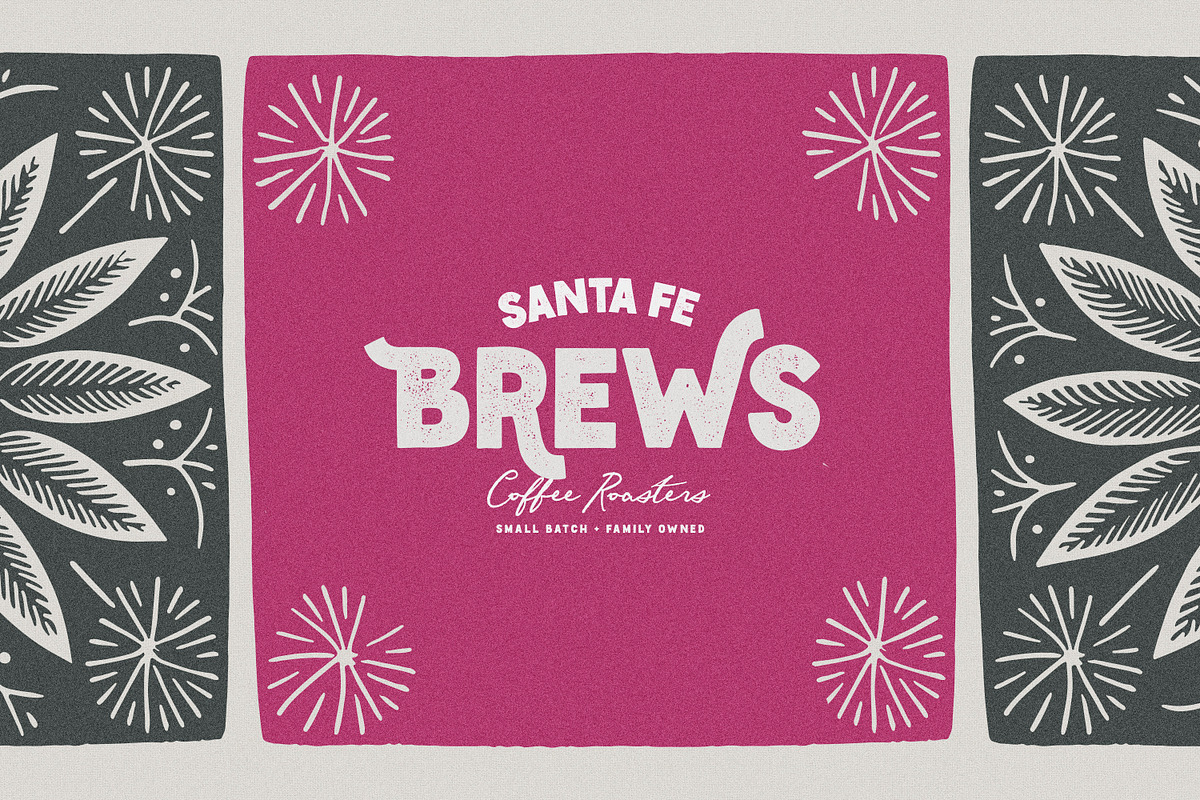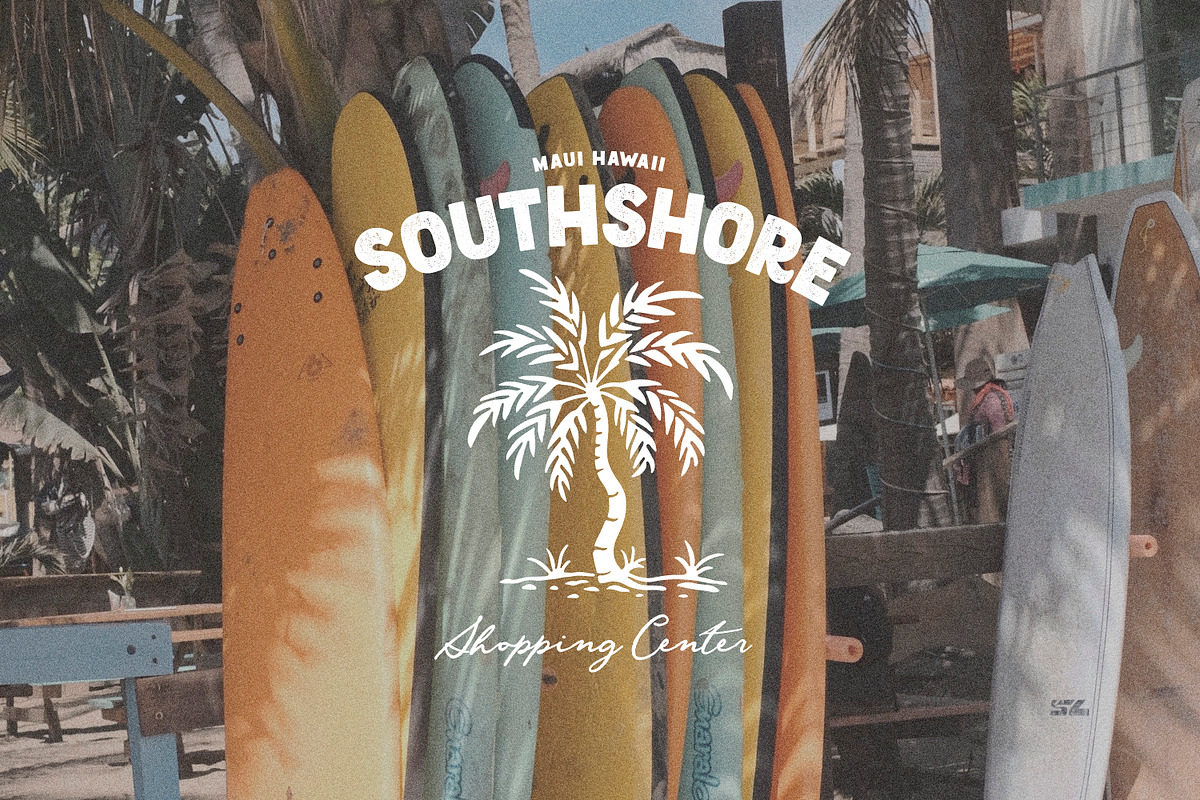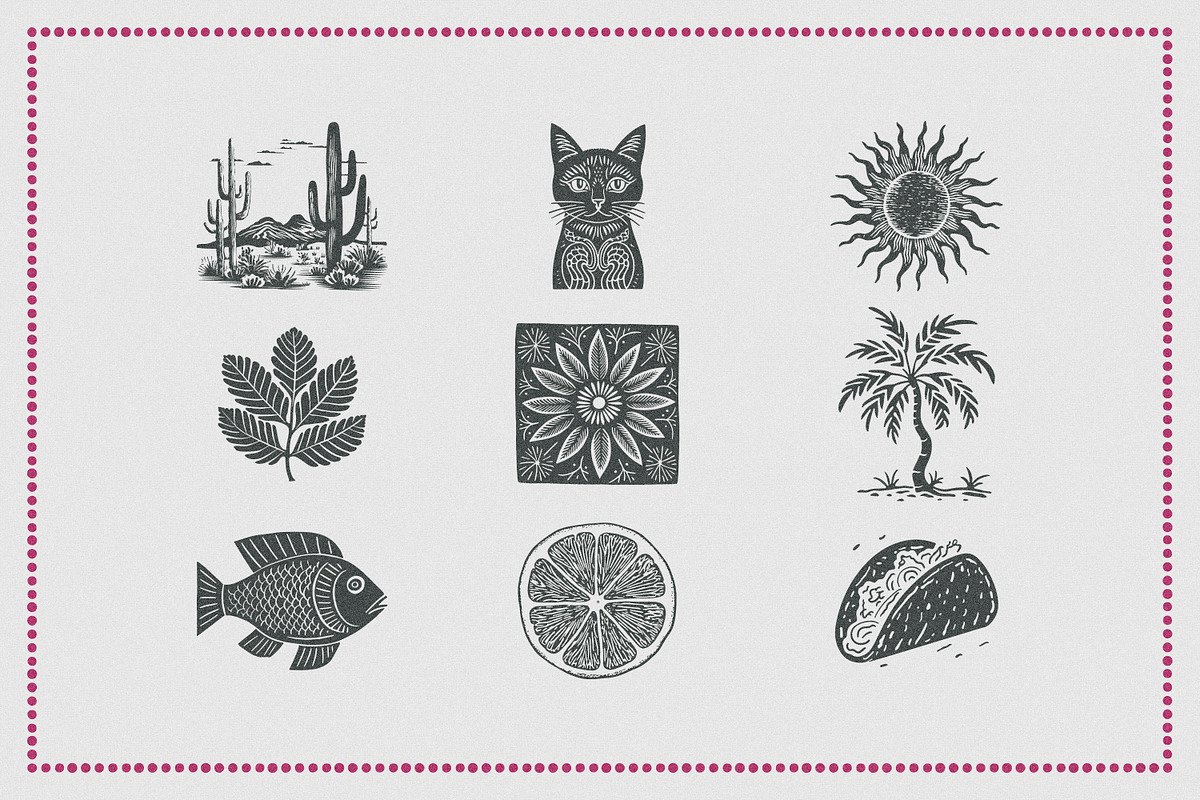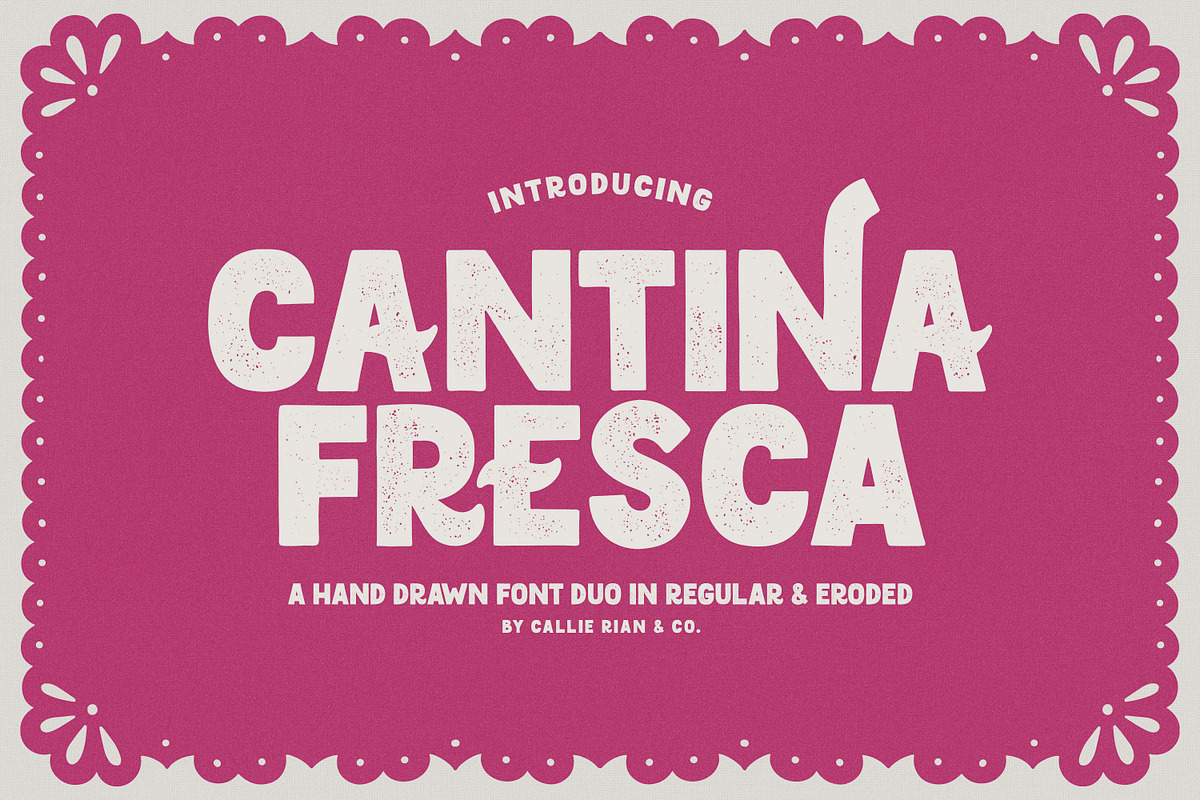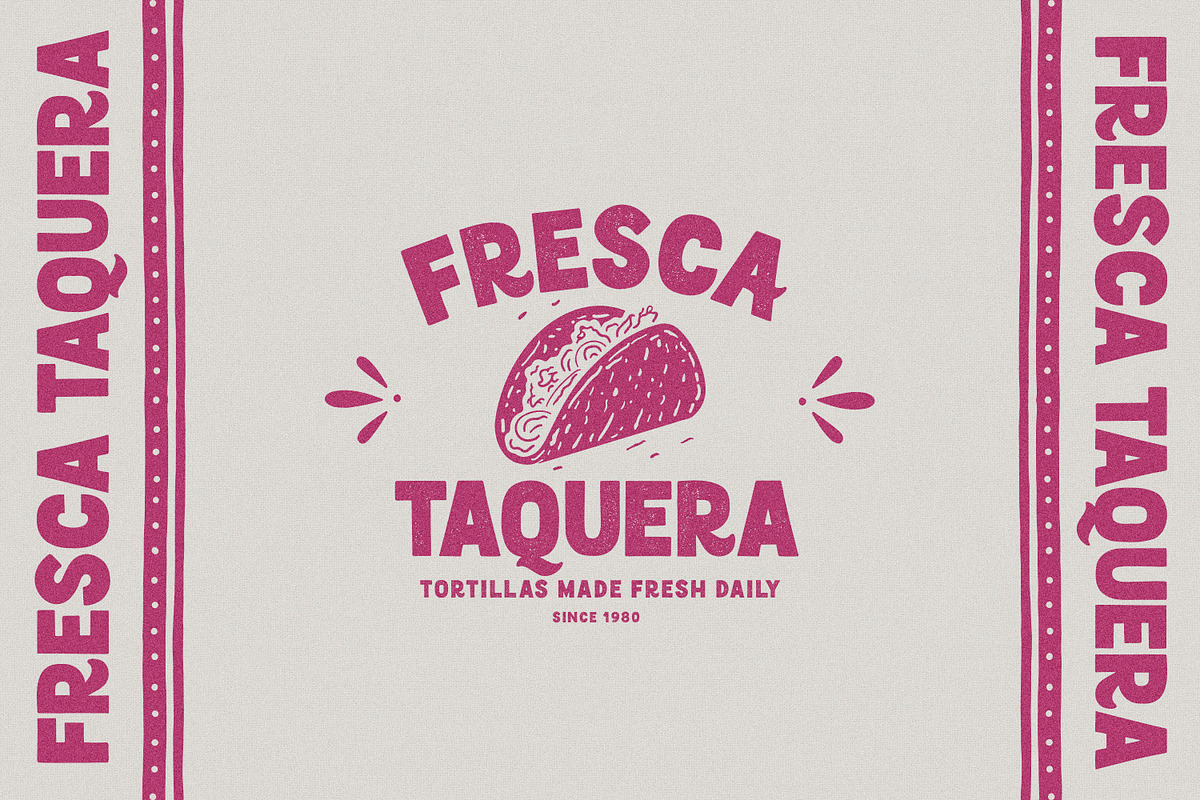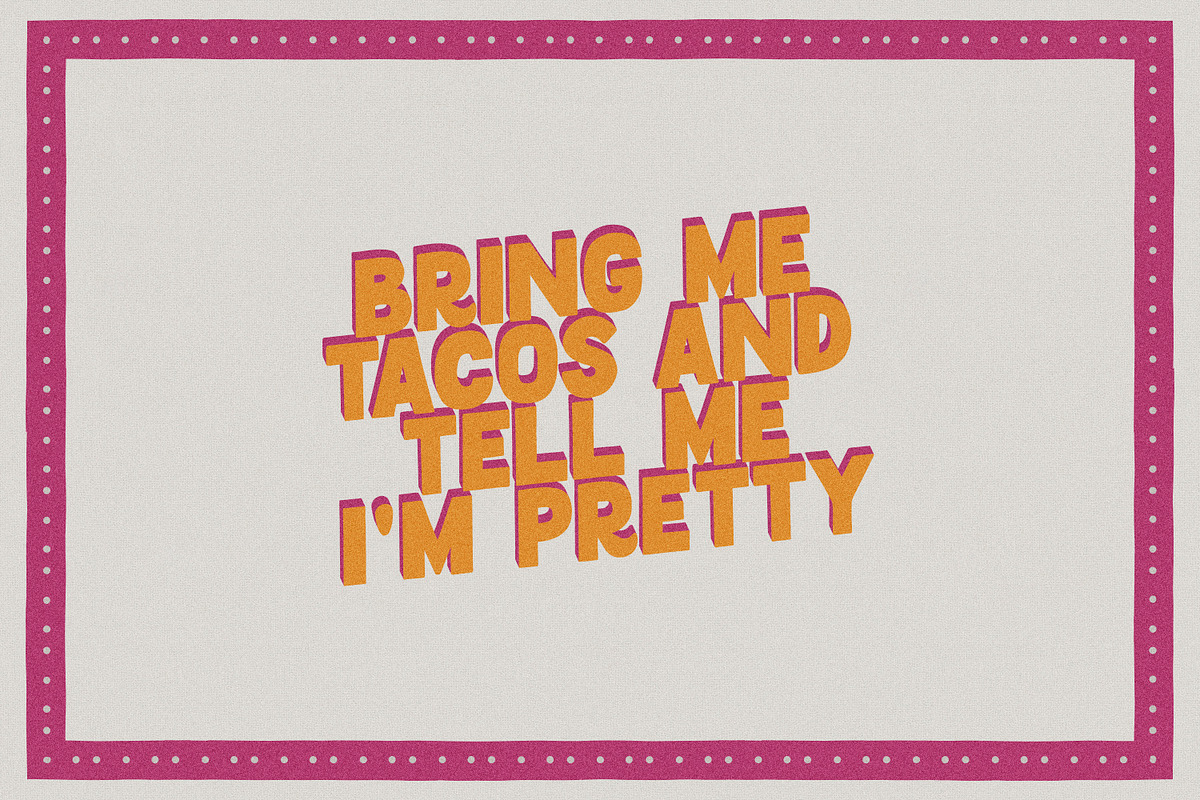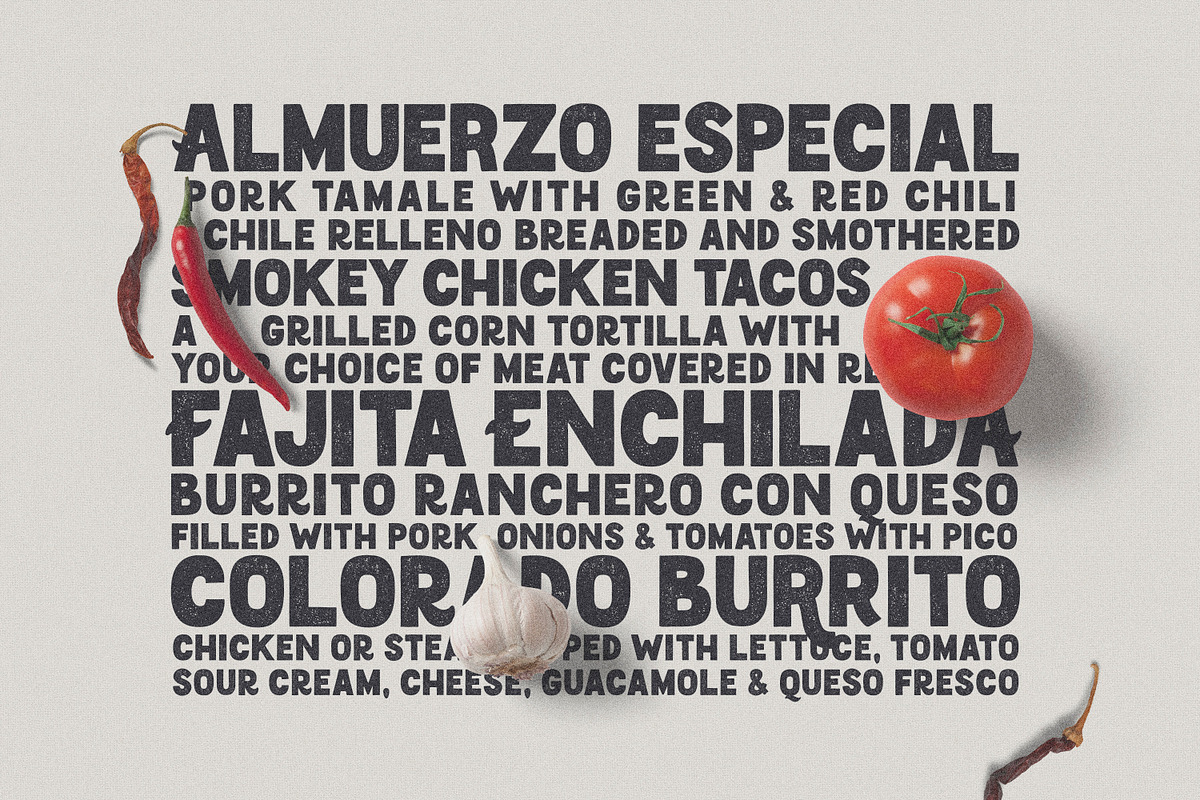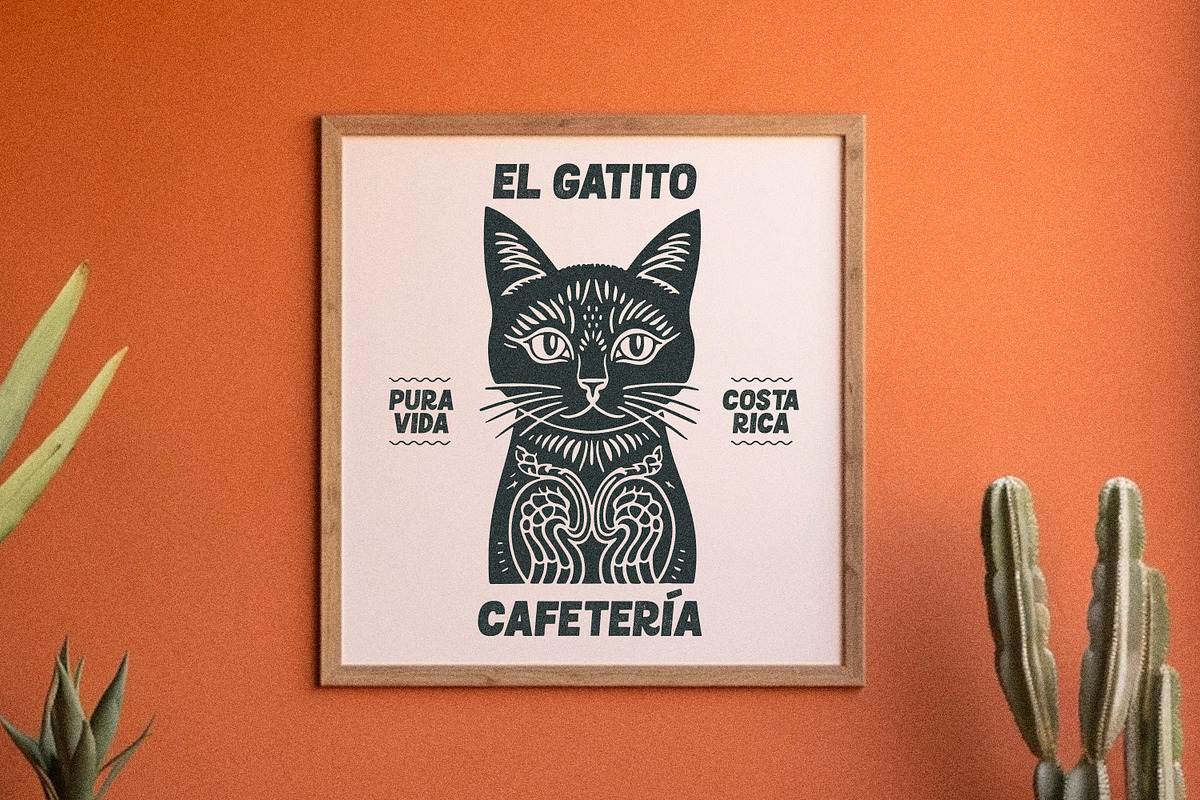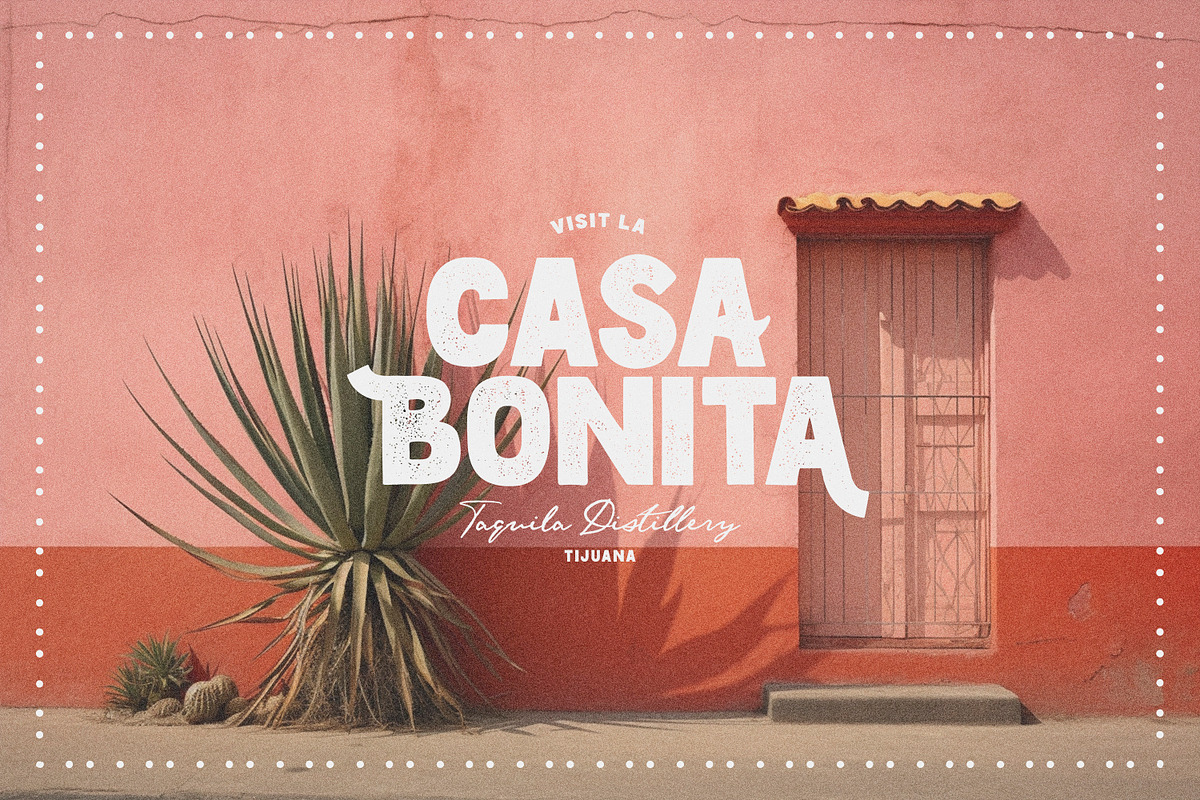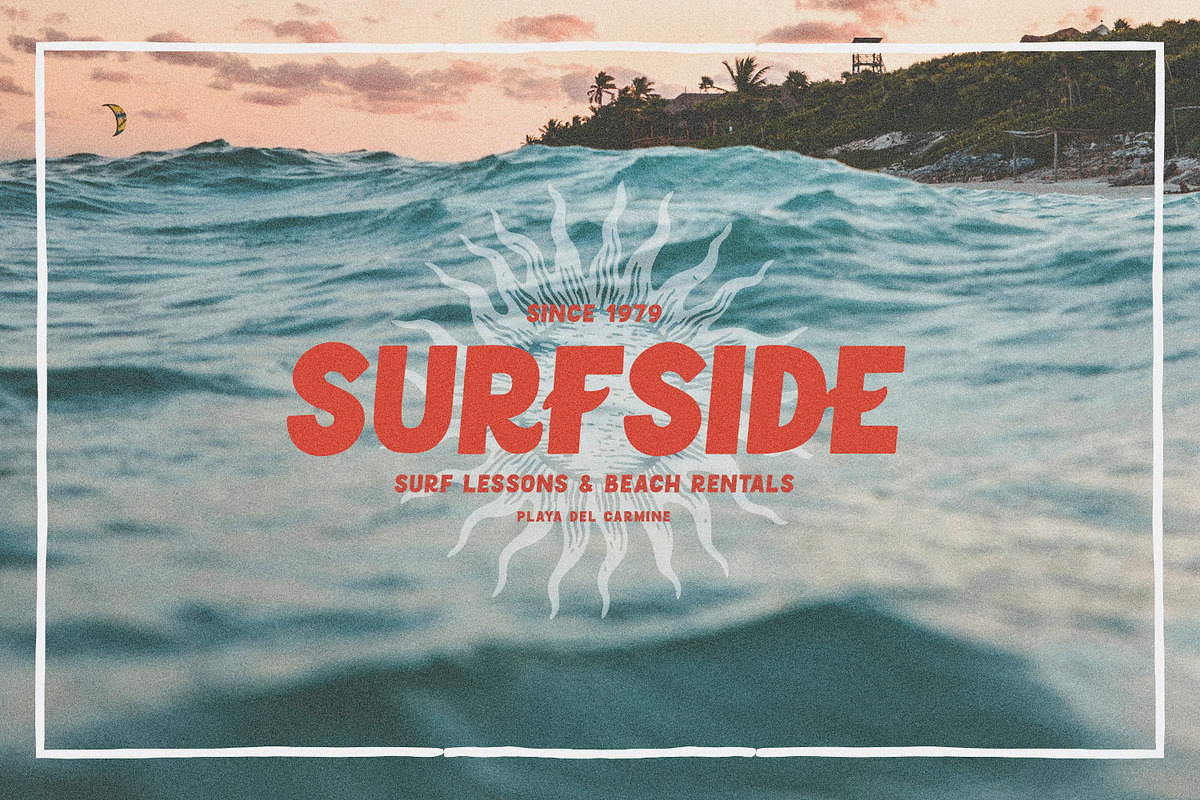
Cantina Fresca Display + Elements
Feast your eyes on Cantina Fresca! 🌶 I went old school on this display typeface and hand lettered each glyph, outlined in pen, scanned, and uploaded to Procreate just to re-trace each character to achieve the perfect edges and thickness! Enjoy 4 versions in both smooth & eroded, plus a set of block print vector elements to make your work pop! Looks amazing on magazines, headlines, greeting cards, logos, quotes, posters and more!
- Select Uppercase Ligatures & Alternates
- Foreign Glyph Support